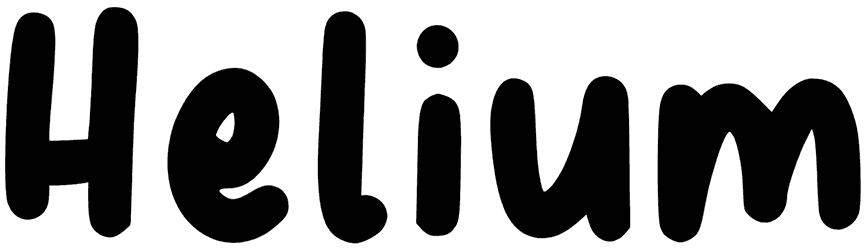
Helium Font
If the deadlines of your projects are just around the corner and you don’t have enough time to find a suitable font, we have a special offer, such as Heliu, for you.
This script font can add a personalized touch to all of your graphic content, including billboards, product packaging, illustrations, and gift cards. Aside from all of its benefits, it carries a sense of playfulness, vivacity, joy, and dynamism.